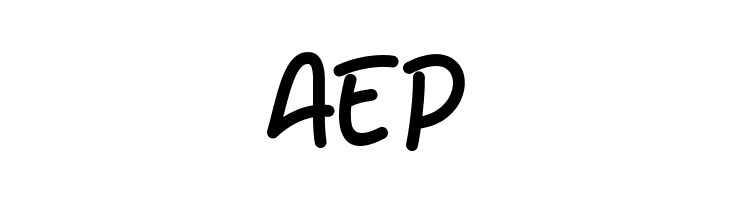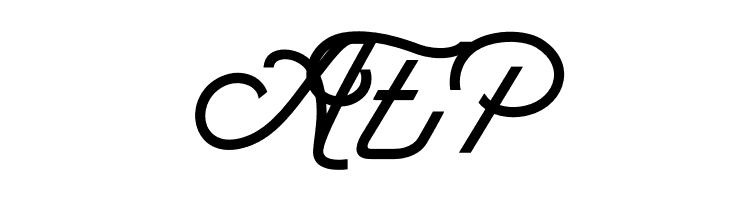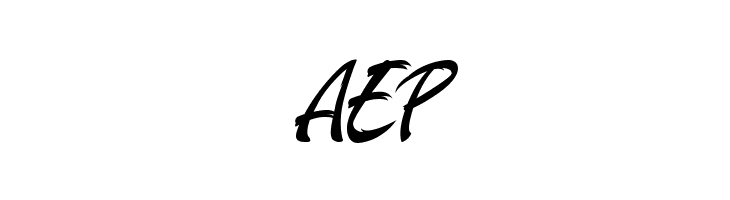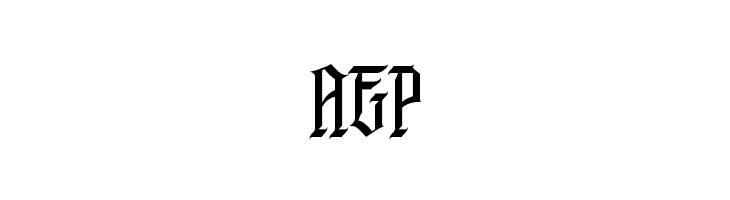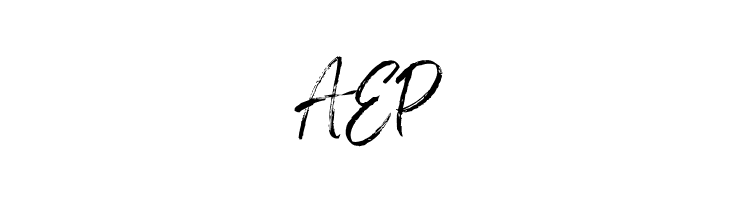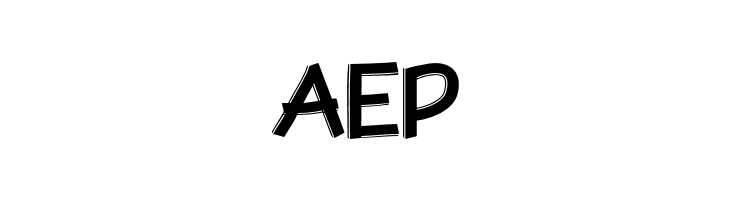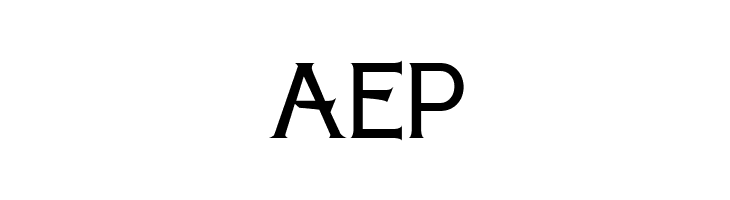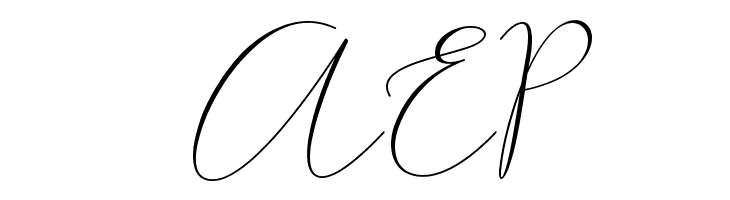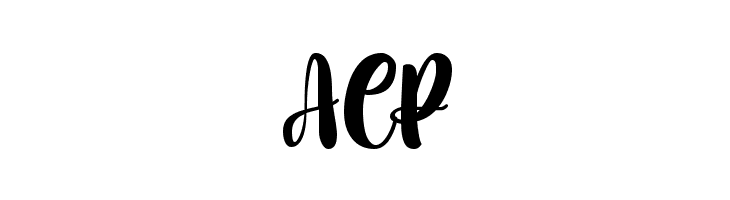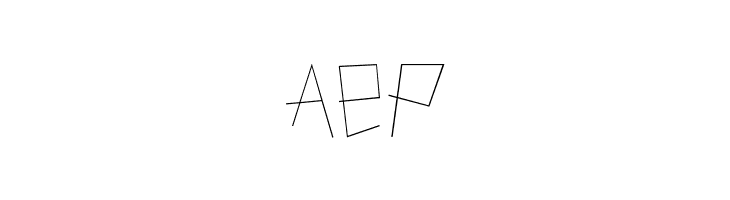
A modern, geometric font with clean lines and rounded characters.
A sleek, modern font with rounded edges and a minimalist aesthetic.
A bold, decorative typeface with intricate, ornamental designs.
A playful, hand-drawn style font with bold, irregular strokes.
A bold, handwritten font with a playful and artistic style.
A pictographic display font with ancient and tribal-inspired symbols.
An elegant, cursive script font with flowing, handwritten strokes.
A lively, expressive handwritten font with fluid, dynamic strokes.
An elegant, cursive font with ornate swirls and flourishes.
A bold, expressive handwritten font with fluid strokes and medium contrast.
A dynamic and expressive script font with fluid, handwritten strokes.
A bold, expressive script font with dynamic, calligraphic strokes.
An elegant script font with flowing, cursive style and intricate swashes.
A bold, playful handwritten font with thick, rounded strokes.
A modern serif font with sharp angles and clean lines.
A bold, modern font with angular uppercase letters and consistent boldness throughout.
A dynamic and elegant script font with flowing cursive design.
A modern, geometric font with clean lines and balanced spacing.
A bold, artistic font with thick strokes and a whimsical style.
A bold, Gothic-inspired font with sharp, angular lines and high contrast.
A dynamic and expressive handwritten font with fluid, energetic strokes.
A bold blackletter font with sharp, angular lines and intricate detailing.
A bold, flowing script font with a modern and elegant style.
A bold, flowing script font with elegant, cursive strokes.
A modern cursive font with elegant, flowing lines and a slight slant.
An elegant, flowing cursive font with intricate loops and smooth connections.
A bold, brush-style handwritten font with dynamic strokes and a casual elegance.
A dynamic, brush-style font with expressive, fluid strokes.
A playful, handwritten font with smooth, rounded edges and a casual style.
A bold, mechanical font with a futuristic, industrial design.
A modern, sleek font with elongated, narrow characters and a uniform appearance.
A bold, geometric font with strong, modern letterforms.
A modern, abstract font with thin, intersecting lines forming geometric characters.
A modern, elegant script font with flowing, cursive characters.